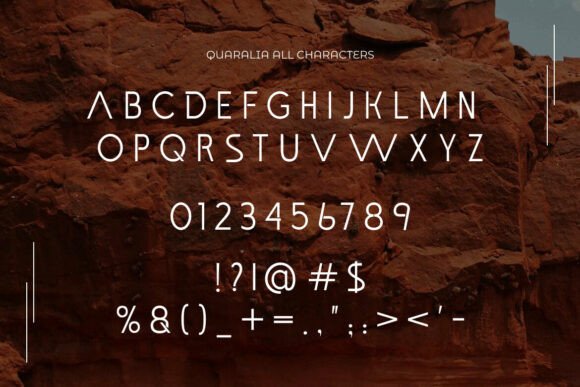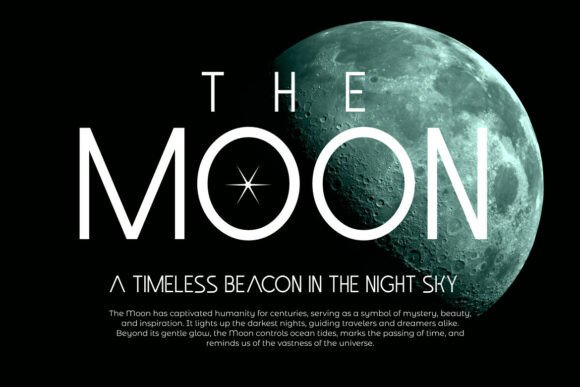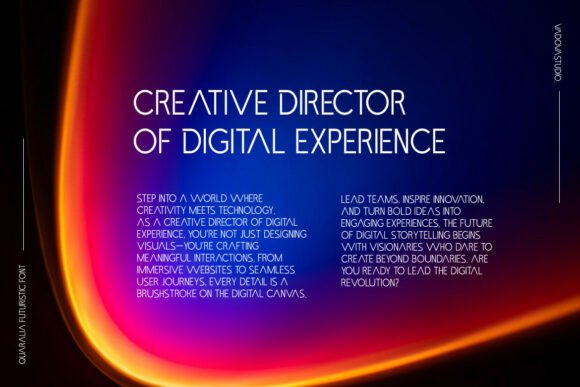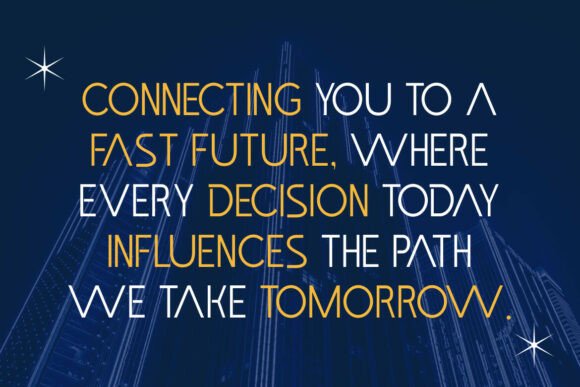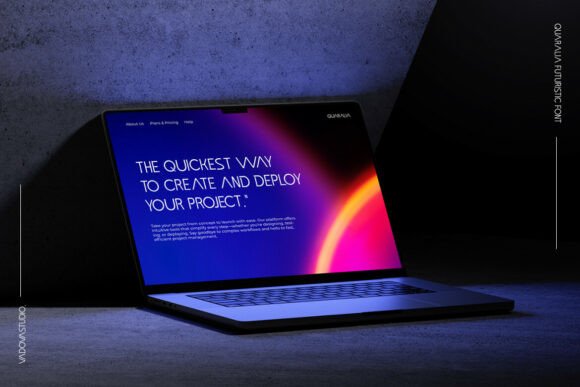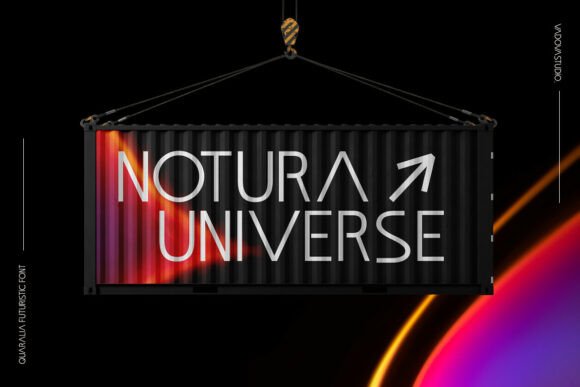
Introduction to Quaralia Font
Have you ever found yourself stuck on a design project, desperately searching for the perfect font to elevate your creative vision? I know I have. It’s that moment of frustration, when you’re pouring over design resources, searching for the perfect combination of style and sophistication. But what if I told you that I’ve discovered a game-changing font that’s sure to take your design to the next level? Say hello to the Quaralia Font, a sleek futuristic sans serif font designed to make bold statements and spark innovation.
As a designer, you know how valuable it is to have access to high-quality design resources that can help you bring your creative project to life. With its clean lines, sharp angles, and elegant spacing, the Quaralia Font is the perfect addition to any design arsenal. Whether you’re working on a space-themed project or a modern corporate identity, this font is sure to provide a cutting-edge vibe that will leave a lasting impression.
Key Features of Quaralia Font
- High-quality design resource ideal for creative projects, including graphic design, digital art, and more.
- Features a transparent background, allowing for seamless integration into various design elements and backgrounds.
- Includes multiple font styles, including bold, italic, and regular, to provide flexibility and versatility in design projects.
Honest Review: Quaralia Font
I recently stumbled upon the Quaralia Font, and I must say it’s a great addition to any design resource collection. As a designer, I appreciate high-quality fonts that can elevate a creative project and make it stand out. The Quaralia Font is one such font that delivers on this promise.
- ✨ Sleek and modern design aesthetic that’s perfect for contemporary projects
- ✨ Highly legible and easy to read, even at smaller font sizes
- ⚠️ Limited font styles and weights, which may not be suitable for complex design projects
- ⚠️ May not work well with a transparent background, depending on the design
Overall, I’m impressed with the Quaralia Font. It’s a solid choice for designers looking for a modern and high-quality font to add to their creative project. With its sleek design and ease of use, it’s definitely worth considering for your next design endeavor.
Quaralia Font
Getting the Most Out of Quaralia Font
For optimal results, use Quaralia Font in conjunction with a high-quality design. Experiment with different font sizes and styles to achieve the desired effect.
Can I customize the Quaralia Font to suit my design needs?
Yes, the Quaralia Font is highly customizable, allowing you to adjust its size, color, and style to suit your creative project. You can also use font editing software to modify the font’s characteristics and create a unique look for your design.